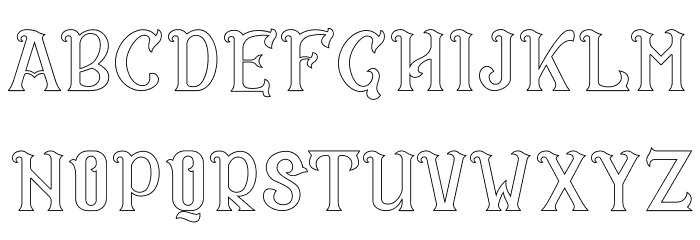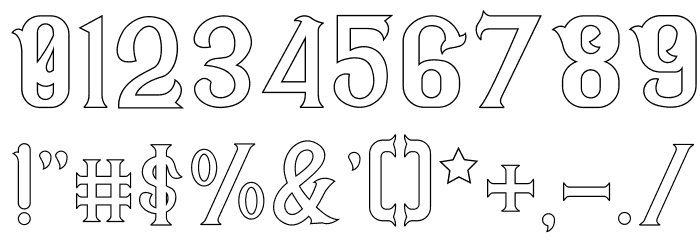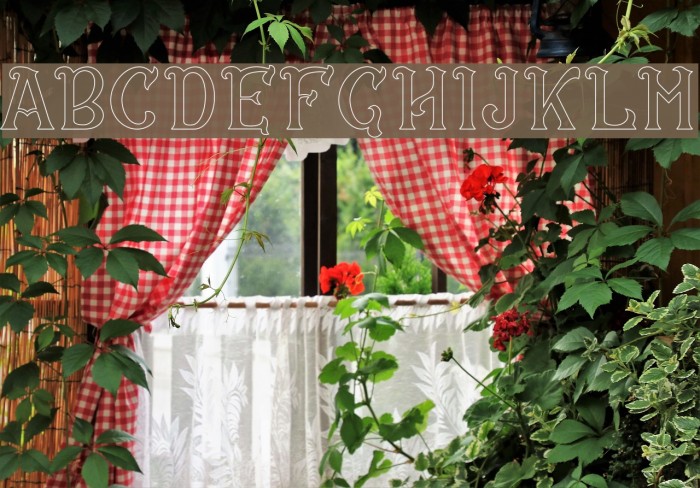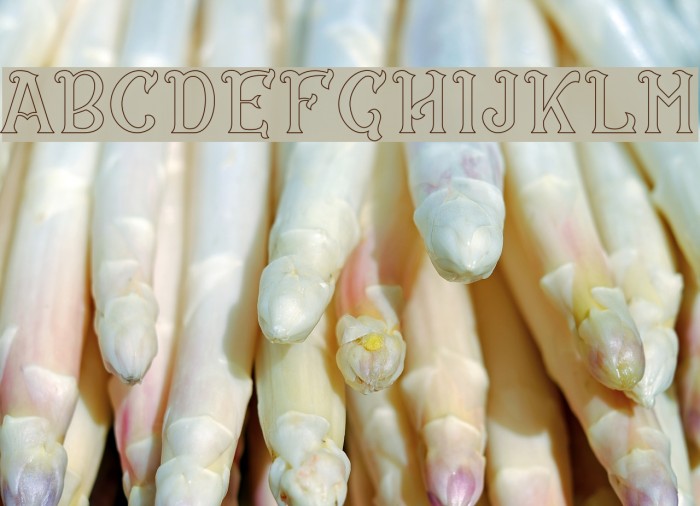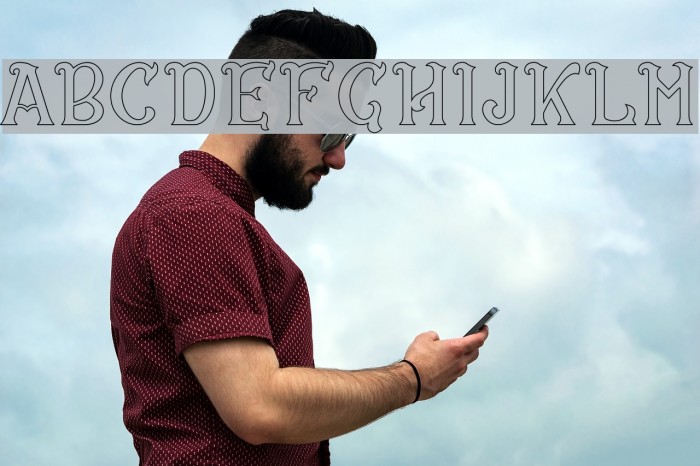
CS Rosalia Outline Font
This font features an outline style with a decorative flair, characterized by its bold and artistic strokes. The uppercase and lowercase letters exhibit a unique blend of traditional serif elements with a modern twist, creating an eye-catching appearance. The numerals and special characters maintain this decorative theme, ensuring consistency across all glyphs. The font's outline nature gives it a light and airy feel, making it suitable for designs that require a touch of elegance and sophistication. Its intricate details and stylized serifs make it stand out, while the overall design remains balanced and harmonious.
A decorative outline font with bold, artistic strokes and stylized serifs.
- Proposed Projects: Ideal for branding, posters, invitations, and any project that requires a decorative and elegant touch.